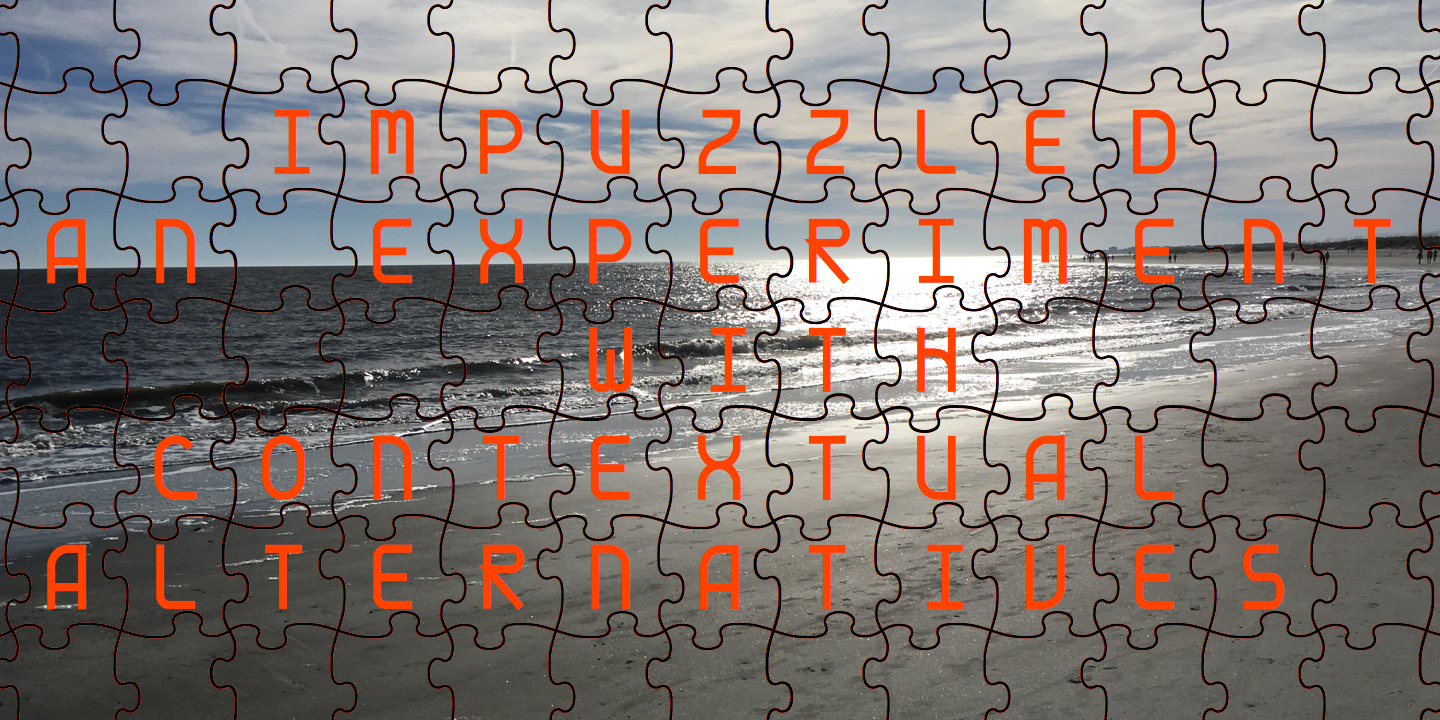
IMPuzzeled
Designed by Robert Schenk, IMPuzzeled is a monograms and novelty font family. This typeface has two styles and was published by Ingrimayne Type.
IMPuzzled uses the OpenType feature of Contextual Alternatives to alternate two sets of characters. The sets are on two puzzle pieces that tessellate, that is, fit together to fill the plane with no gaps or overlaps. Empty pieces are on the brace keys and can be used to fill spaces. The black or solid style is designed to be used in a layer under the regular style, though it can be used alone if adjacent pieces are given different colors.